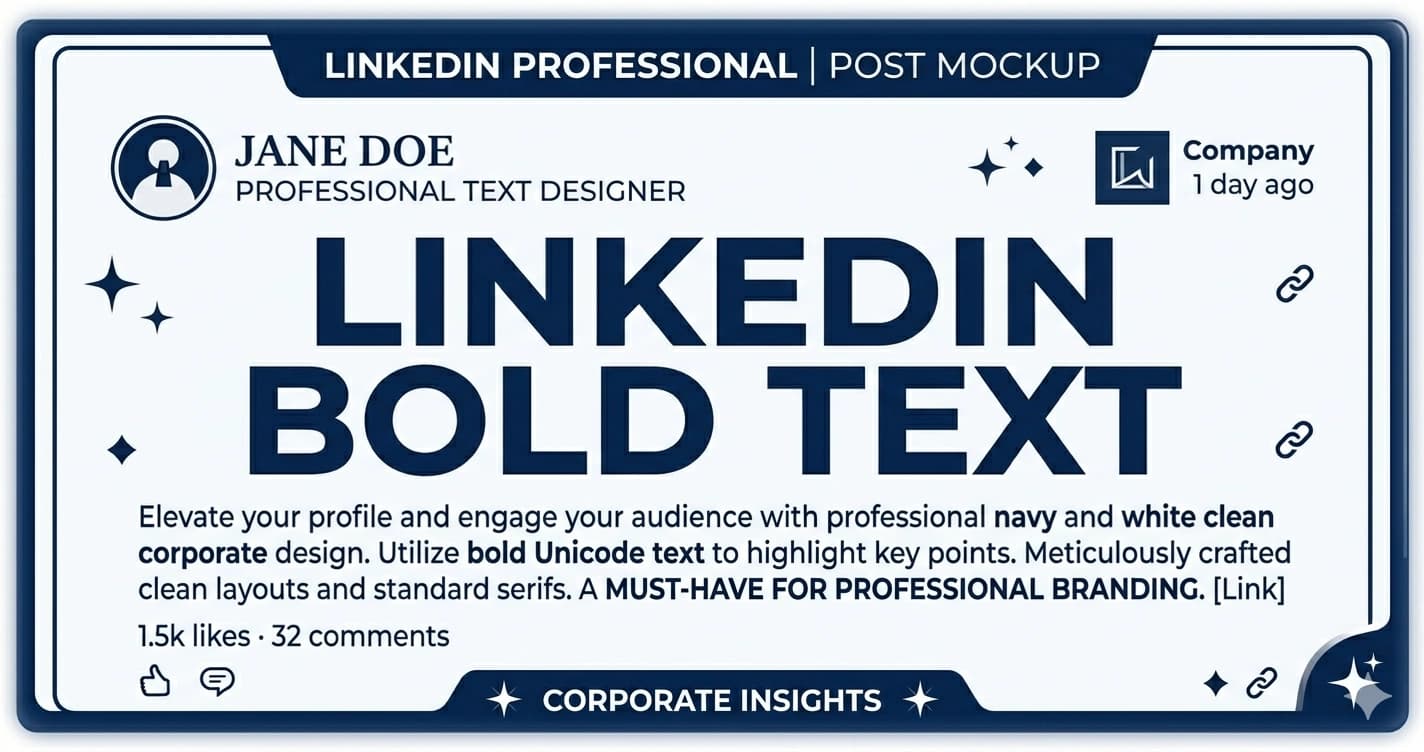
LinkedIn Bold Text — How to Make Bold Text in LinkedIn Posts and Profile
LinkedIn has no native bold button for posts, headlines, or the About section. The formatting toolbar you see in some editors only works for Articles — not regular posts, not your headline, not your profile summary.
The workaround is Unicode bold text: characters from the Unicode Mathematical Bold block that look bold but are plain text. They paste into any LinkedIn field and render as bold for every reader.
Why LinkedIn Has No Bold for Posts
LinkedIn's post editor is intentionally minimal. Unlike Articles (which have a full formatting toolbar), regular posts are plain text only. There's no <strong> tag, no markdown, no bold shortcut.
This is a platform design choice — LinkedIn wants posts to look consistent in the feed. The side effect is that everyone's post hooks look identical in weight and size.
Unicode bold sidesteps this entirely. When you paste 𝐋𝐢𝐤𝐞 𝐭𝐡𝐢𝐬 into a LinkedIn post, LinkedIn stores and renders it as-is — because these are legitimate Unicode characters, not formatting markup. LinkedIn can't strip them without stripping valid text.
How to Make Bold Text on LinkedIn (30 Seconds)
2. Type the text you want in bold
3. Click the result to copy it
4. Paste directly into your LinkedIn post, headline, or About section
Done. The bold text appears immediately and looks the same for all viewers on all devices.
Where LinkedIn Bold Text Works
Posts (3,000 character limit)
The most common use case. Bold works in every part of a post:
• Opening hook line — the first line is visible before "see more." Bold here increases stop-scroll rate.
• Section headers — for long structured posts, bold headers make the content scannable.
• Key terms — bolding a single phrase mid-post draws the eye to your core point.
Example post hook:
𝐌𝐨𝐬𝐭 𝐋𝐢𝐧𝐤𝐞𝐝𝐈𝐧 𝐩𝐫𝐨𝐟𝐢𝐥𝐞𝐬 𝐚𝐫𝐞 𝐢𝐧𝐯𝐢𝐬𝐢𝐛𝐥𝐞 𝐢𝐧 𝐬𝐞𝐚𝐫𝐜𝐡.
Here's what separates the ones that get found from the ones that don't...
The bold hook stands out in a feed of plain-text posts.
Headline (220 characters)
LinkedIn headlines appear in search results, connection requests, and messages. Bold makes your role title immediately scannable when a recruiter is looking at 20 profiles in a list.
Example:
𝐒𝐨𝐟𝐭𝐰𝐚𝐫𝐞 𝐄𝐧𝐠𝐢𝐧𝐞𝐞𝐫 · React · Node.js · AWS | 5 years building scalable products
The bolded role title creates visual hierarchy. Plain separators keep it professional.
About / Summary (2,600 characters)
The About section is plain text with no native formatting. Bold Unicode section headers turn a wall of text into a scannable profile:
𝐀𝐛𝐨𝐮𝐭 𝐌𝐞
Product designer with 8 years in B2B SaaS...
𝐖𝐡𝐚𝐭 𝐈 𝐃𝐨
I specialize in translating complex data into clear UI...
𝐑𝐞𝐜𝐞𝐧𝐭 𝐖𝐨𝐫𝐤
• Led redesign of [product], increasing activation by 34%
This is the most widely recommended format for LinkedIn About sections. Bold headers, plain text body, bullet points for results.
Articles
LinkedIn Articles have a native formatting toolbar — you can use the built-in bold button. Unicode bold also works here, but isn't necessary. The main value in Articles is bolding the article headline displayed in feed previews, where native formatting doesn't apply.
Comments
Unicode bold works in comments. Useful for emphasis in long comment threads, or for making your comment stand out in a high-traffic post.
Where Bold Text Doesn't Work on LinkedIn
First Name / Last Name: LinkedIn technically accepts Unicode in name fields, but using styled text in your name will hurt recruiter search visibility. LinkedIn search may not normalize 𝐀𝐥𝐞𝐱 to match a search for Alex. Keep name fields plain.
Skills: The Skills section renders as plain text regardless of what you paste. Unicode bold pastes in but may not display as bold consistently across interfaces.
Company Name: Pulls from the company LinkedIn page — you can't style it.
Bold vs. Other Unicode Styles on LinkedIn
Bold (Mathematical Bold) is the most professional Unicode style for LinkedIn. Other styles exist but carry different risks:
StyleExampleLinkedIn Use
Bold𝐋𝐢𝐤𝐞 𝐭𝐡𝐢𝐬✅ Professional — headlines, posts, headers
Italic𝘓𝘪𝘬𝘦 𝘵𝘩𝘪𝘴✅ Titles, publications, subtle emphasis
Bold Italic𝑳𝒊𝒌𝒆 𝒕𝒉𝒊𝒔✅ Strong emphasis for creative profiles
Small Capsʟɪᴋᴇ ᴛʜɪꜱ✅ Formal contexts (finance, law, consulting)
Gothic𝔏𝔦𝔨𝔢 𝔱𝔥𝔦𝔰❌ Too decorative for LinkedIn
Bold Cursive𝓛𝓲𝓴𝓮 𝓽𝓱𝓲𝓼❌ Signals social media, not professional
VaporwaveLike this❌ Not appropriate for professional context
For the full professional context guide — which fields to use each style in, ATS risks, recruiter perspective, and industry-by-industry breakdown — see LinkedIn Unicode Fonts — Professional Use Guide.
There's no confirmed evidence that Unicode bold text increases or decreases post reach. Bold in the opening hook line may increase stop-scroll rate (time spent reading before scrolling), which LinkedIn's algorithm treats as a positive engagement signal.